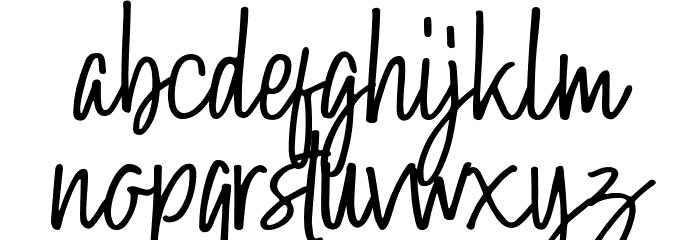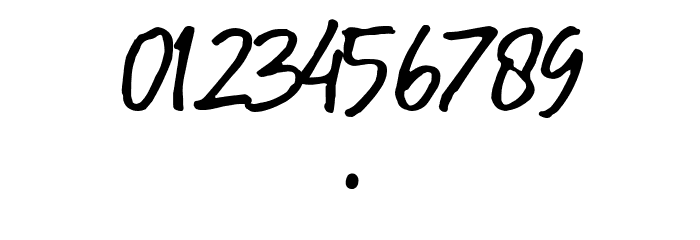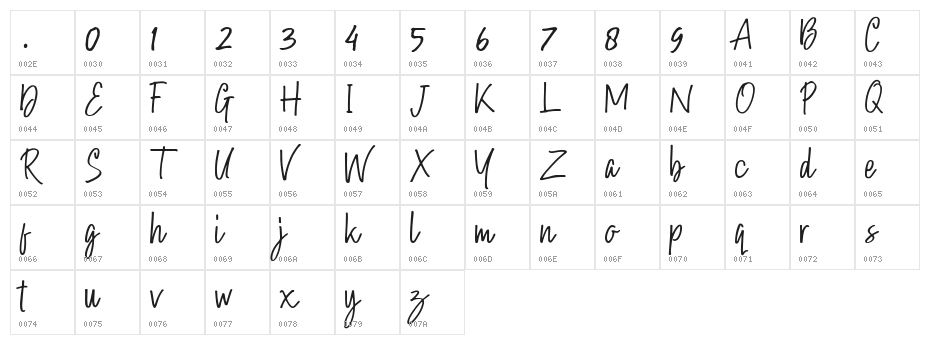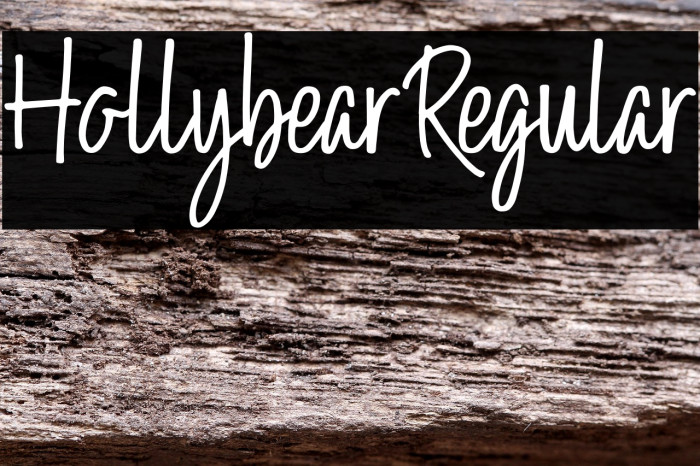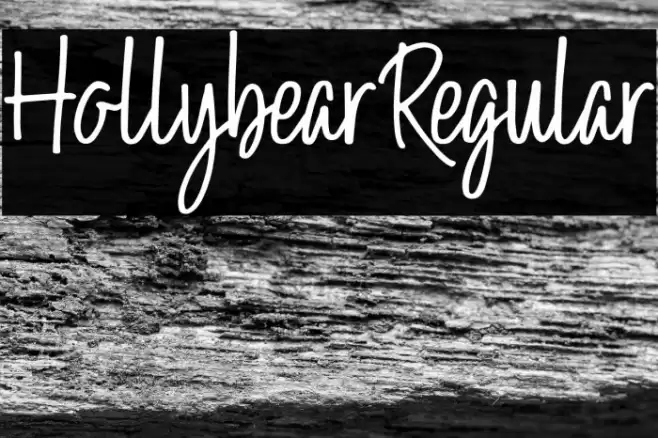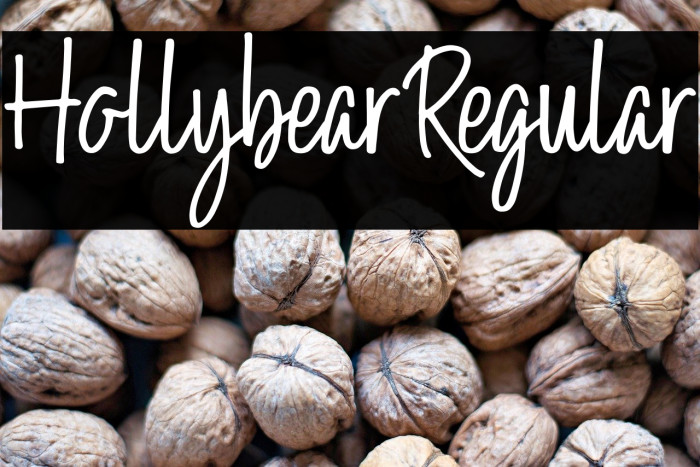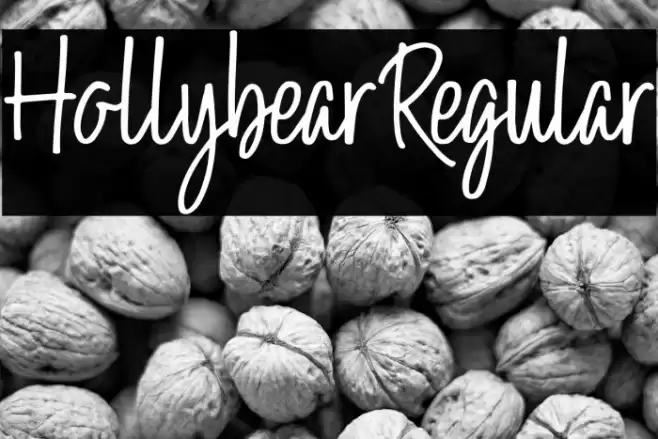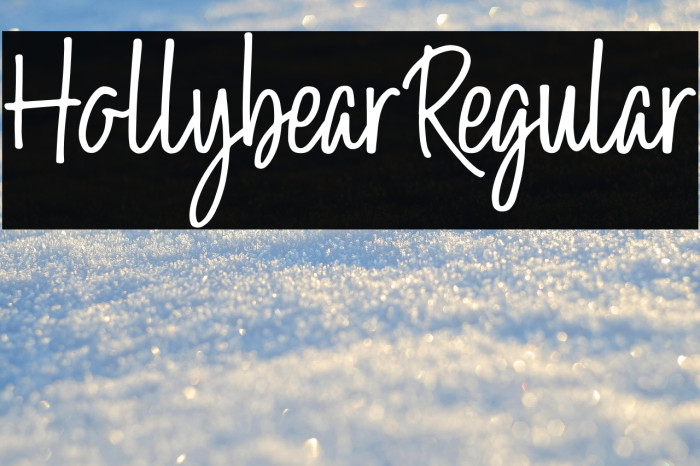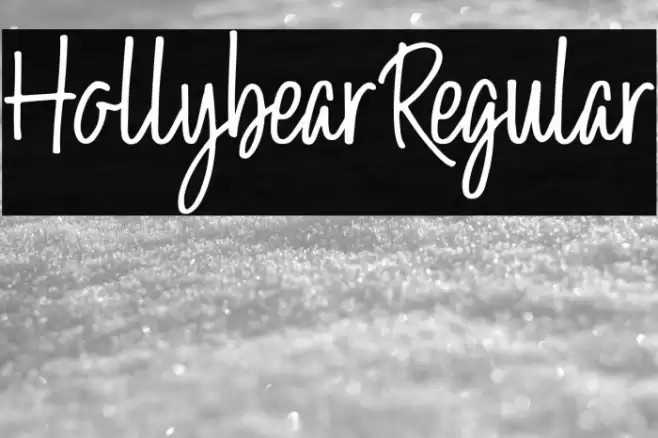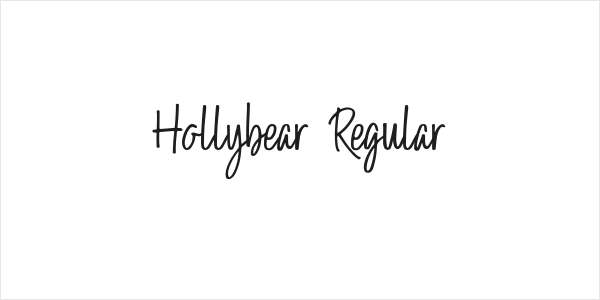
Hollybear-Regular Font
This font features a playful and casual handwritten style, characterized by its fluid and dynamic strokes. The uppercase letters are tall and slightly narrow, with a consistent slant that adds to the informal feel. The lowercase letters maintain a smooth flow, with some characters exhibiting unique loops and curves that enhance the handwritten aesthetic. The numerals are bold and slightly rounded, matching the overall style of the alphabet. This font's design is both approachable and expressive, making it suitable for a variety of creative projects.
A playful, casual handwritten font with fluid strokes and dynamic character shapes.
- Proposed Projects: Ideal for greeting cards, personal branding, social media graphics, and informal invitations.
- Overall Style: Casual, Playful
- Use Case: Logos, Headlines, Informal Text